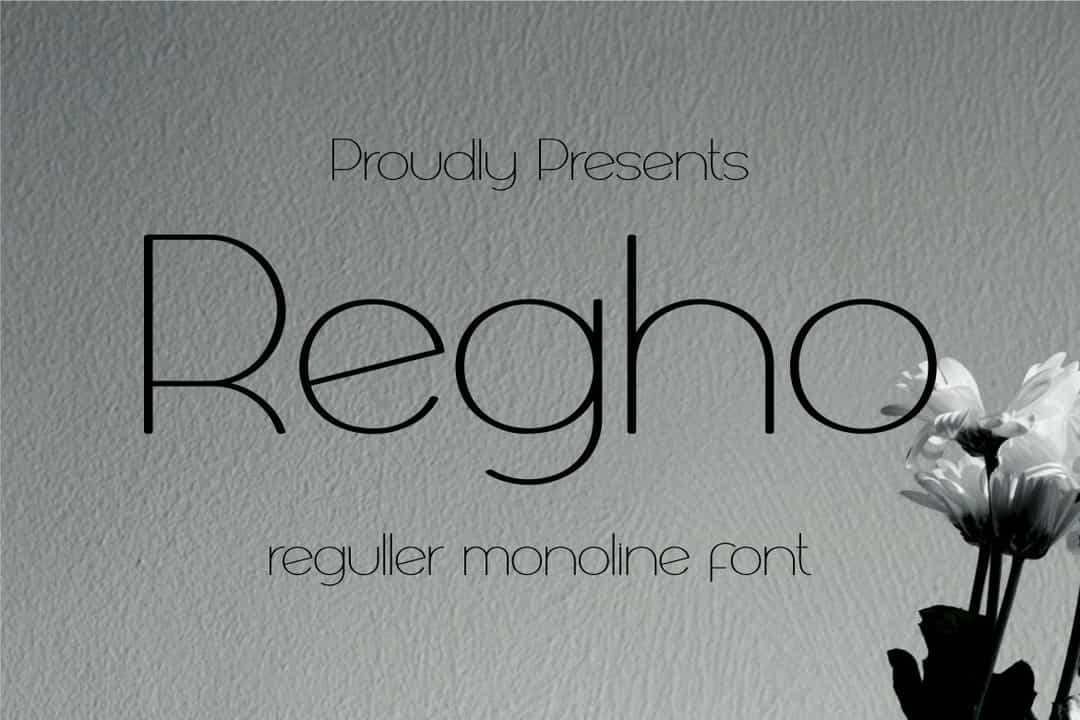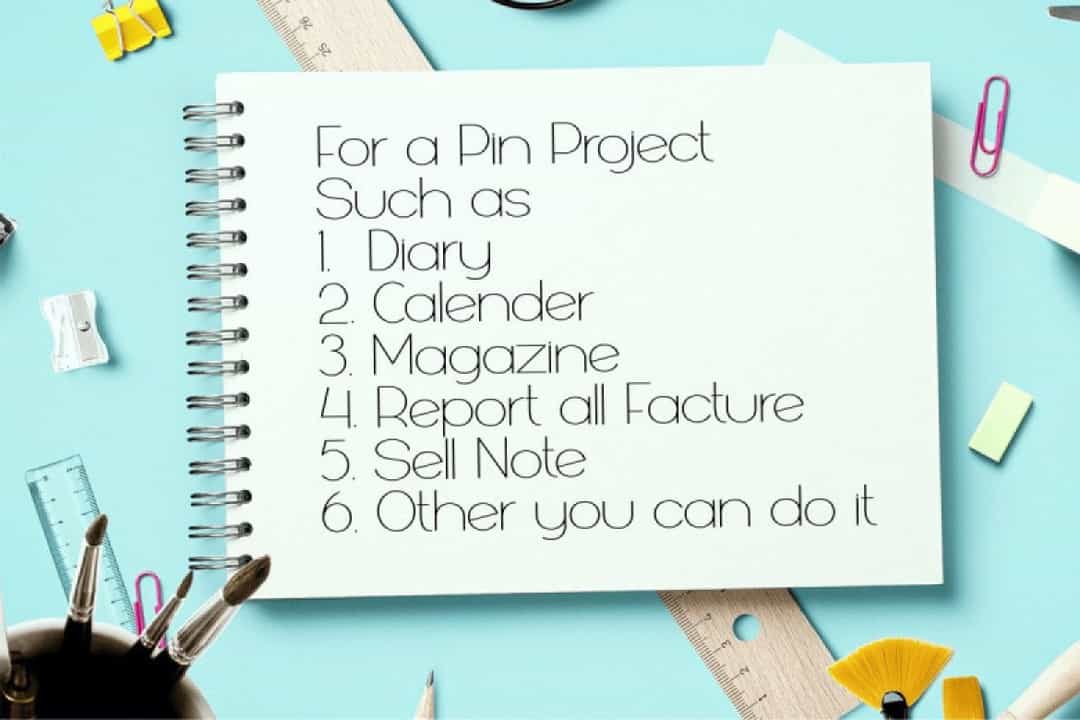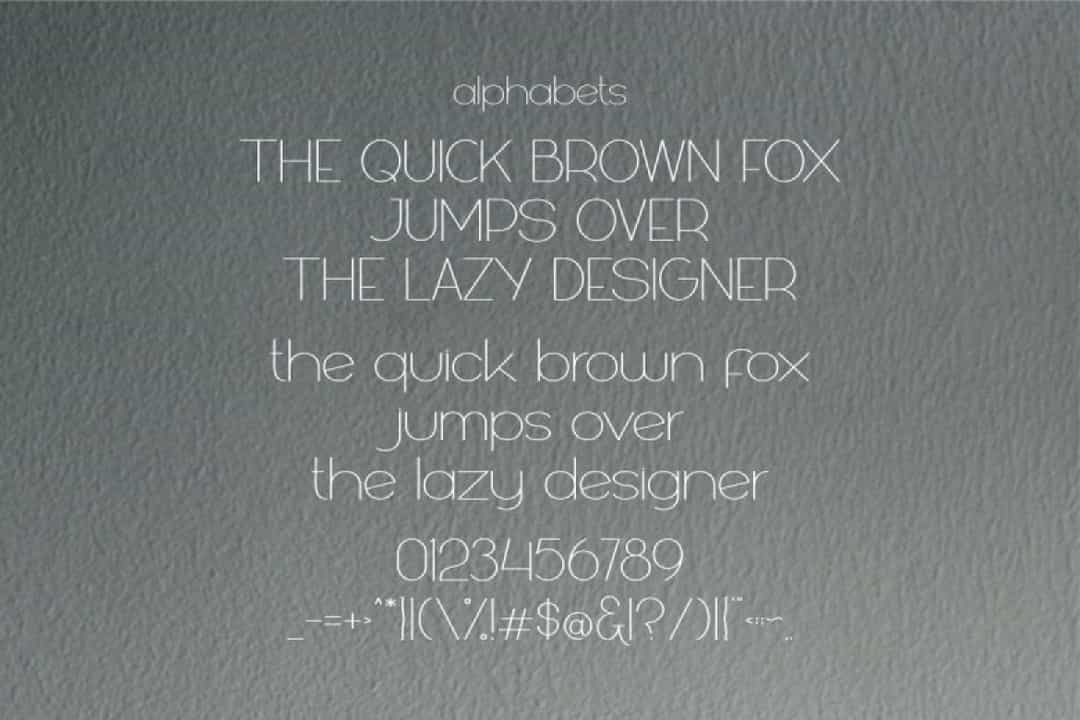
Discover Regho Font, part of the Sans Serif collection—a versatile and unique font perfect for adding a personal touch to your projects. Download it for free and enjoy crafting designs with style, from invitations to social media posts. This font is available exclusively for personal use, giving you the freedom to create without limits. Unlock your creativity with Regho Font today!
Regho is an effortless yet stylish sans-serif font with elegantly slim curves, creating an approachable and easy-to-read aesthetic. Perfect for writing large-scale requirements such as daily notes, newspapers and magazines articles or designing any product requiring lots of writing – Regho can be used anywhere there is writing required such as designing products.